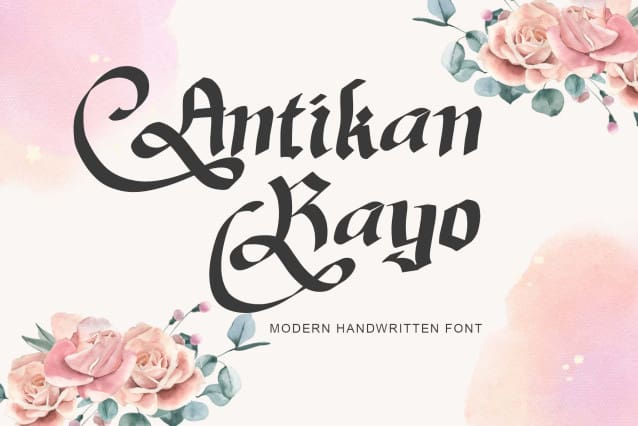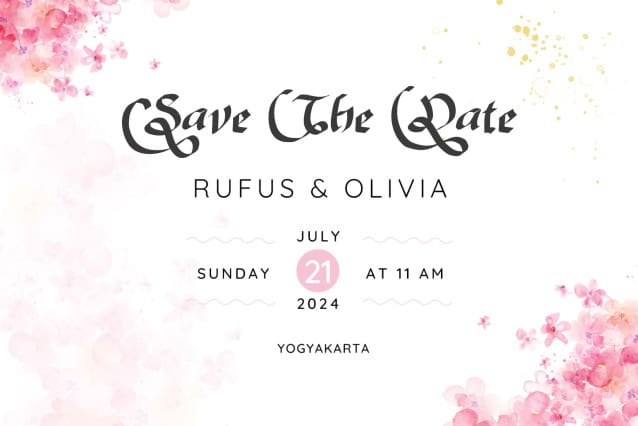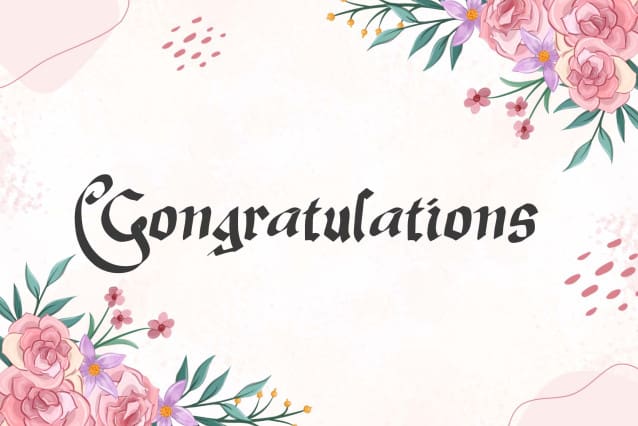
Antikan Rayo Font
Antikan Rayo Font is a beautiful handwritten font. This font is equipped with uppercase, lowercase, numerals, punctuation, and multilingual support. very suitable for Christmas, winter, weddings, engagements, valentines, invitations, photography, birthdays, and others.